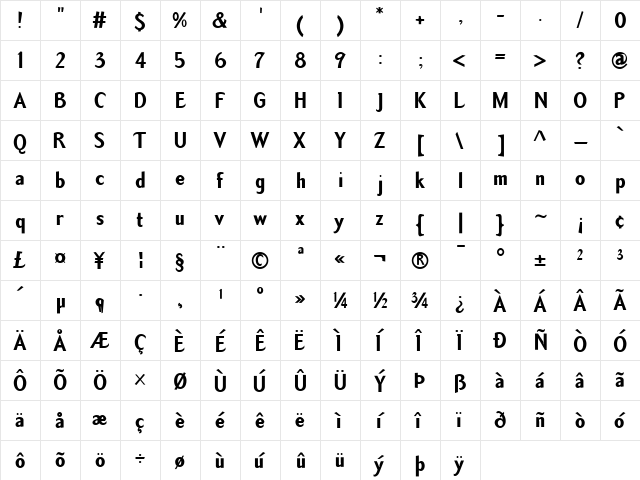
TemaCantanteSans Bold
Design Context for TemaCantanteSans Typeface
TemaCantanteSans offers clean, dependable letterforms without strong stylistic allegiance, making it a practical choice for designers who need flexibility. Its bold stroke weight gives it real presence on the page.